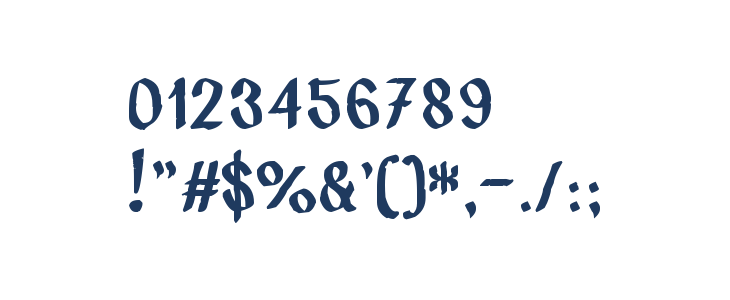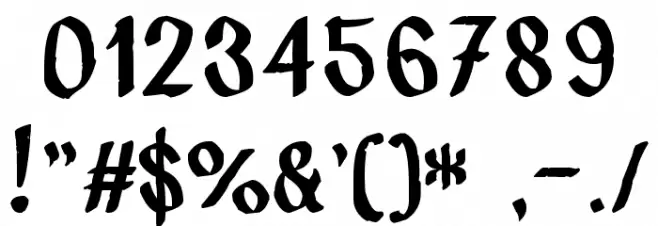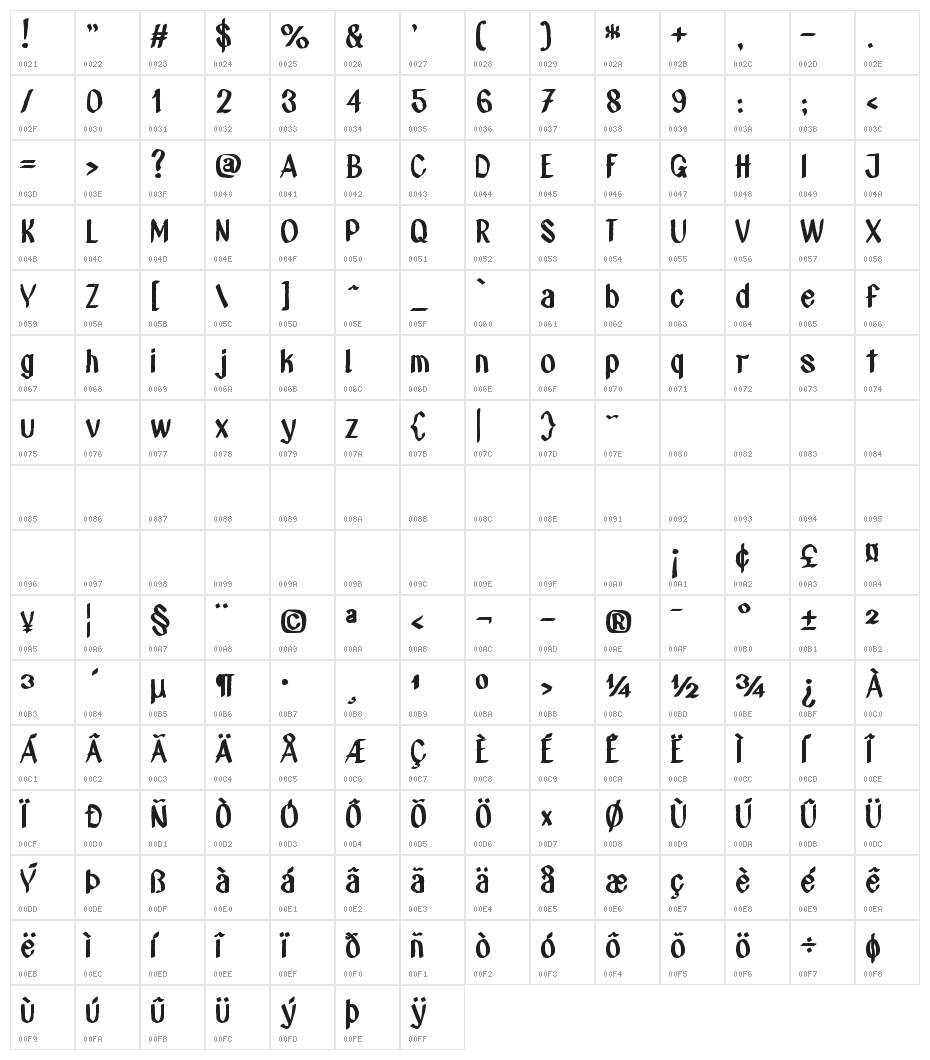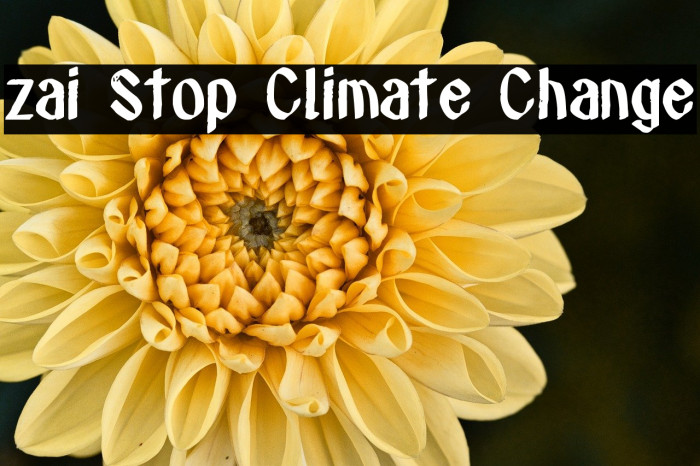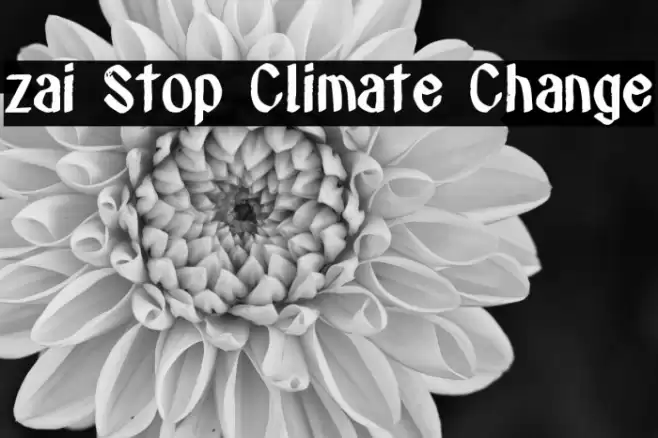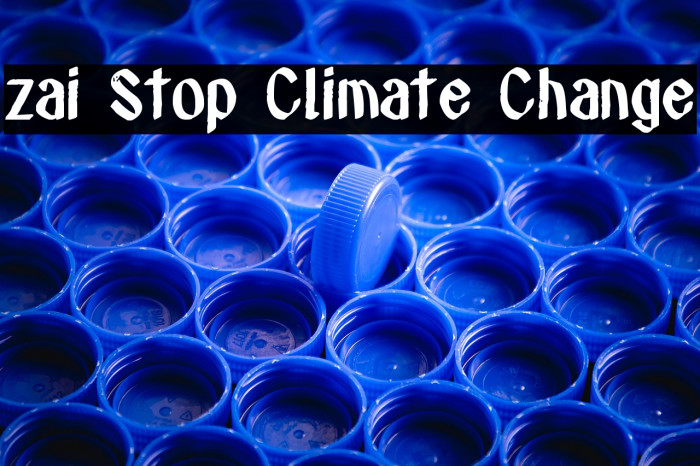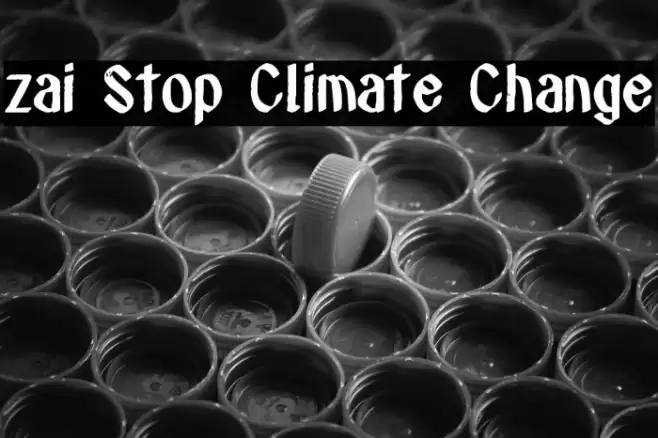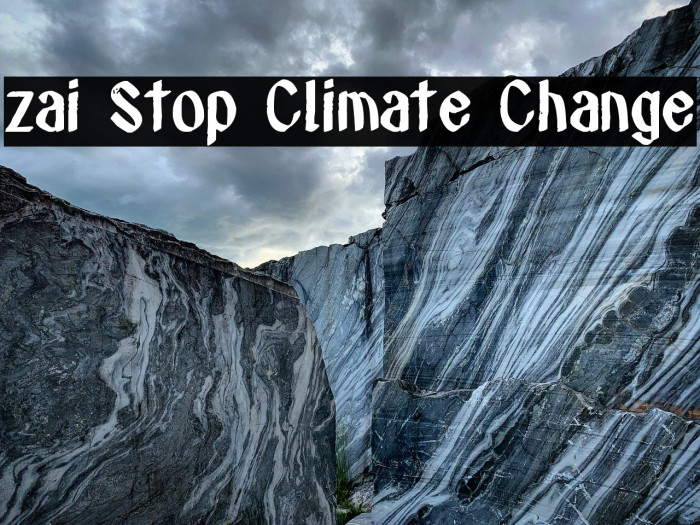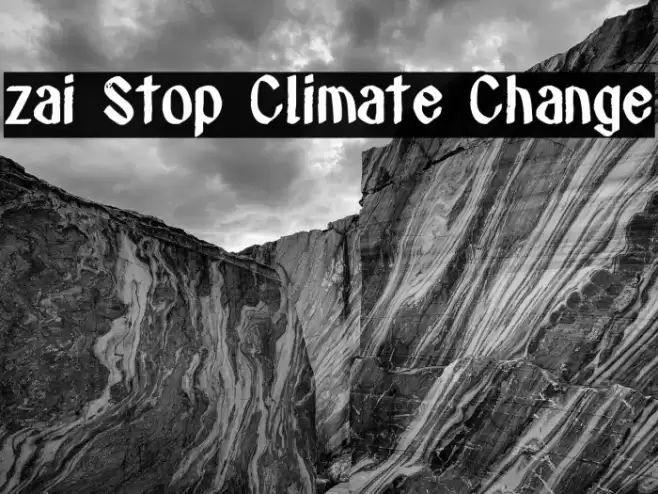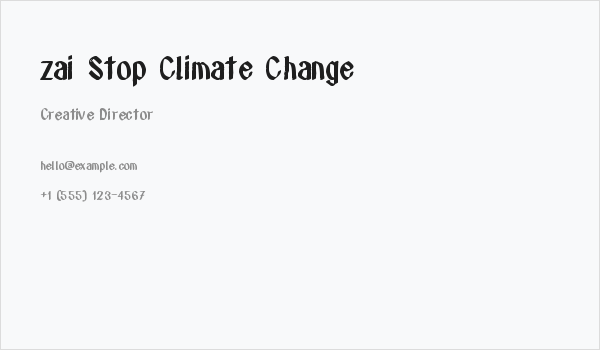
zai Stop Climate Change Font
zai Stop Climate Change Description
This font features a bold and expressive style with a hand-painted appearance. The characters have a rough, textured look, giving them a dynamic and energetic feel. The uppercase and lowercase letters maintain a consistent style, with slightly irregular edges that add to the handcrafted aesthetic. Numbers and special characters follow the same design principles, ensuring a cohesive look across all glyphs. The font's unique style makes it stand out, perfect for projects that require a bold statement.
| Use Case | Headlines, Posters, Campaigns |
| Proposed Projects | Ideal for posters, banners, and environmental campaigns that need to convey urgency and impact. |